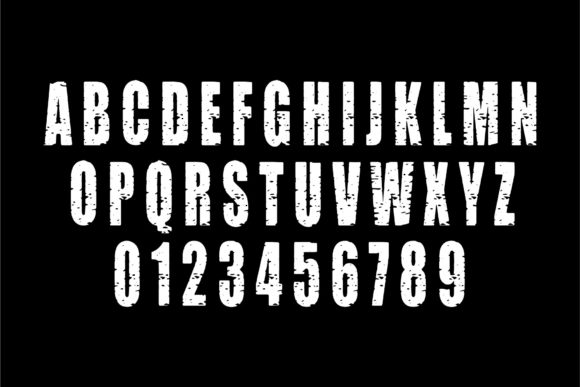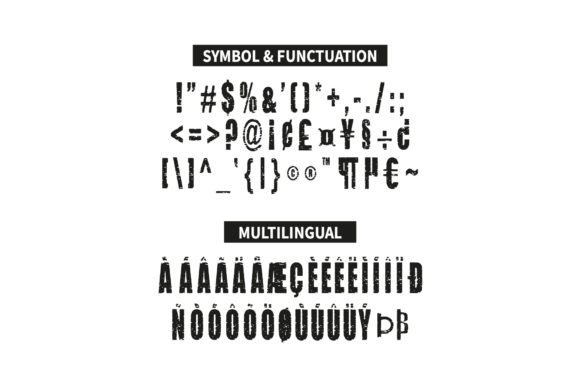
Unleash the Horror with Dzulumat Font: A Spine-Chilling Display Font for Designers and Crafters
Are you looking for a font that can add a touch of horror and eeriness to your designs? Look no further than Dzulumat Font, a spine-chilling display font that is easy to use and read. With its bold and creepy aesthetic, Dzulumat Font is perfect for designers and crafters who want to create eye-catching and memorable products. In this article, we’ll explore the features and benefits of Dzulumat Font, and show you how to incorporate it into your creative projects.
What is Dzulumat Font?
Dzulumat Font is a horror display font that is designed to add a touch of darkness and eeriness to your designs. Its bold and creepy aesthetic makes it perfect for creating eye-catching logos, branding, clothing, and more. The font is easy to use and read, making it accessible to designers and crafters of all skill levels.
Features of Dzulumat Font
- Highly Readable: Despite its bold and creepy aesthetic, Dzulumat Font is highly readable, making it perfect for use on a wide range of products.
- Versatile: Dzulumat Font works on a wide variety of products, including logos, branding, clothing, and more.
- Spine-Chilling Aesthetic: Dzulumat Font has a bold and creepy aesthetic that is sure to grab attention and leave a lasting impression.
Benefits of Using Dzulumat Font
So why should you choose Dzulumat Font for your next design project? Here are just a few benefits of using this spine-chilling display font:
- Adds a Touch of Horror: Dzulumat Font adds a touch of horror and eeriness to your designs, making it perfect for Halloween-themed products or for designers who want to create a spooky aesthetic.
- Grabs Attention: The bold and creepy aesthetic of Dzulumat Font is sure to grab attention and leave a lasting impression on your audience.
- Easy to Pair: Dzulumat Font is easy to pair with other fonts, making it perfect for use in a wide range of design projects.
Dzulumat Font is perfect for a wide range of design projects, including:
- Halloween-themed Products: Use Dzulumat Font to create spooky and eye-catching Halloween-themed products, such as jack-o-lanterns, Halloween cards, and more.
- Horror-themed Logos: Use Dzulumat Font to create bold and creepy logos for horror-themed businesses, such as haunted houses or horror movie production companies.
- Creepy Clothing: Use Dzulumat Font to create creepy and eye-catching clothing, such as t-shirts, hoodies, and more.
Dzulumat Font is a spine-chilling display font that is perfect for designers and crafters who want to add a touch of horror and eeriness to their designs. With its bold and creepy aesthetic, Dzulumat Font is sure to grab attention and leave a lasting impression on your audience. Whether you’re creating Halloween-themed products, horror-themed logos, or creepy clothing, Dzulumat Font is the perfect choice. So why wait? Download Dzulumat Font today and start creating eye-catching and memorable designs!